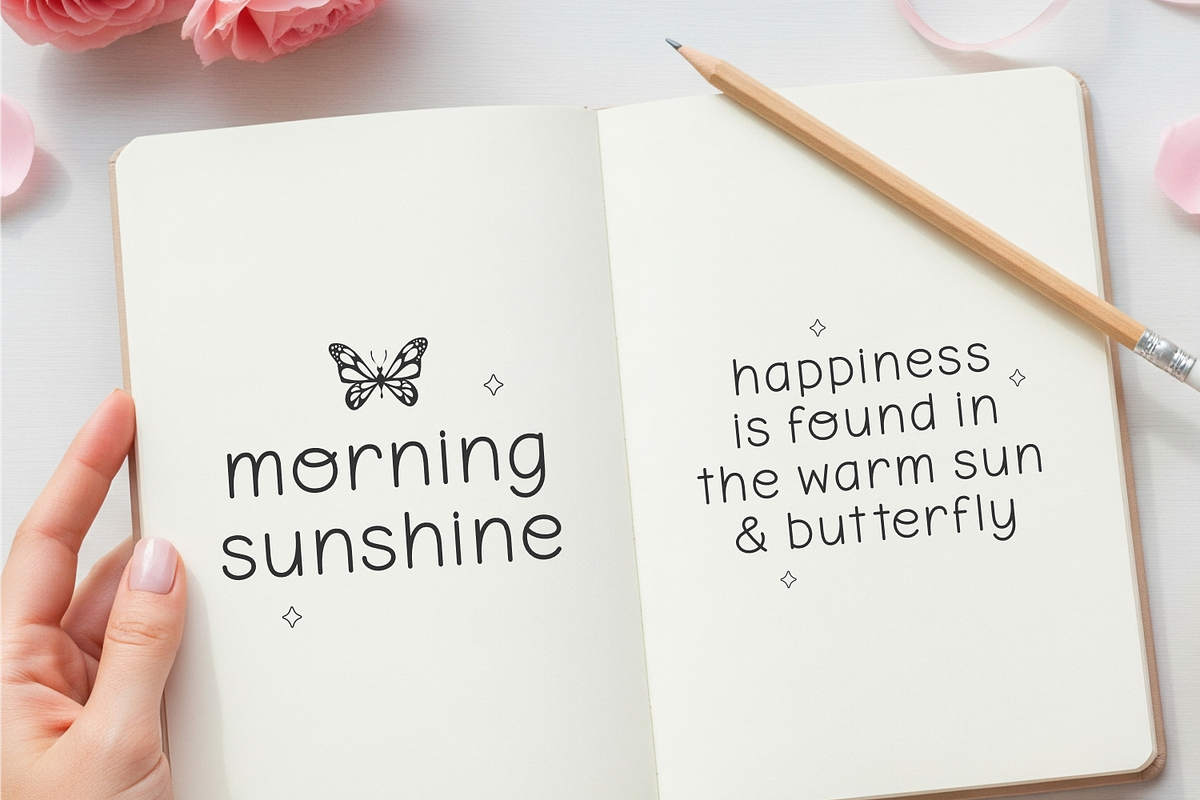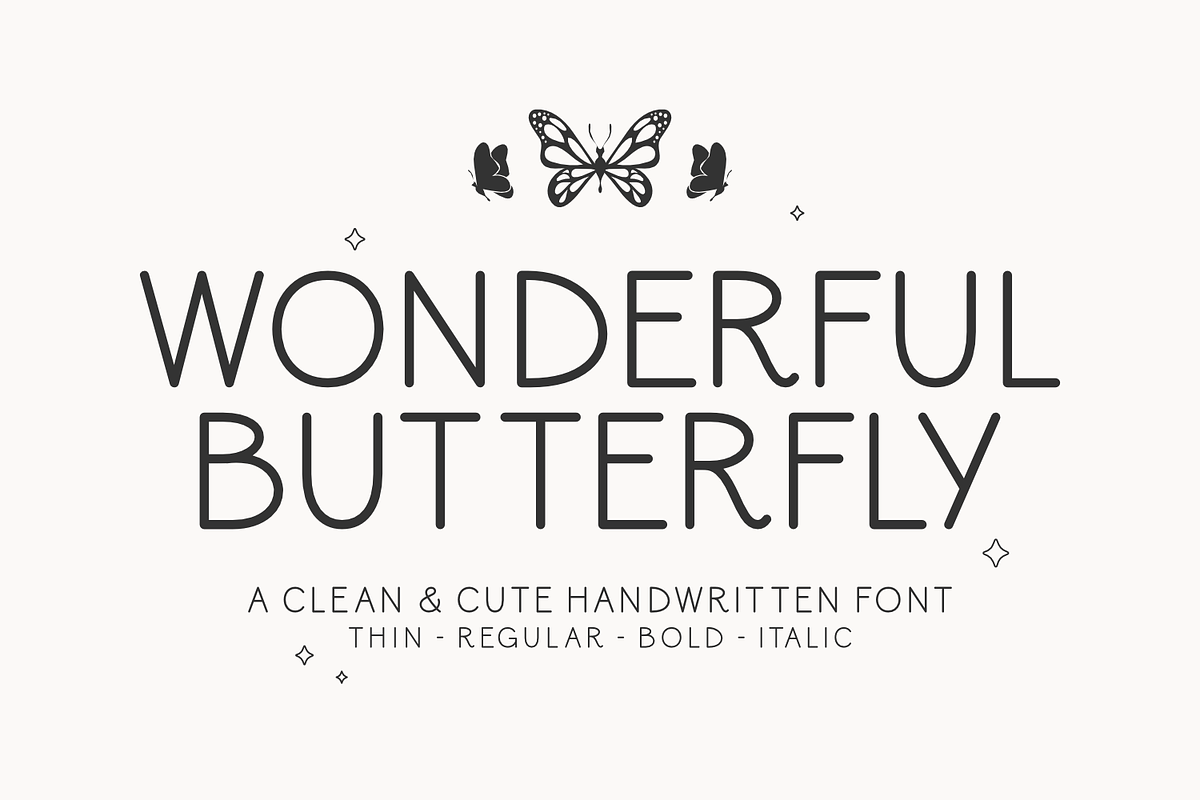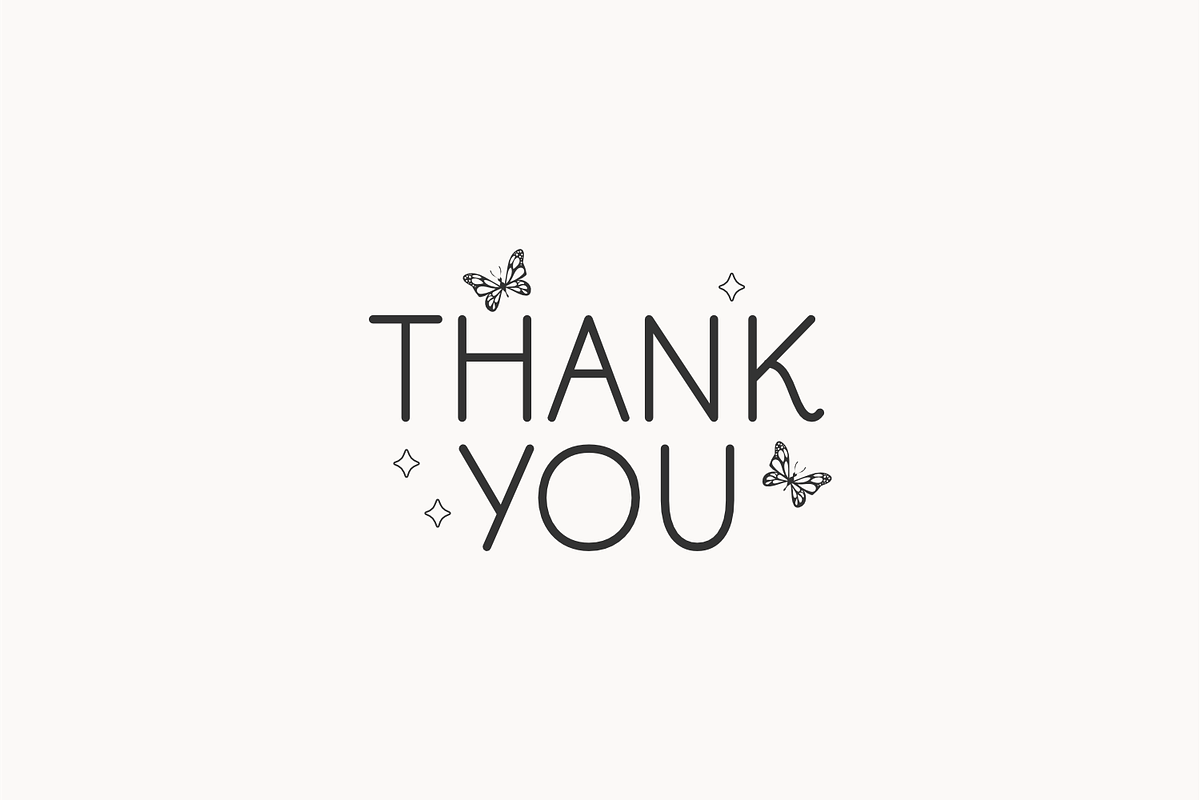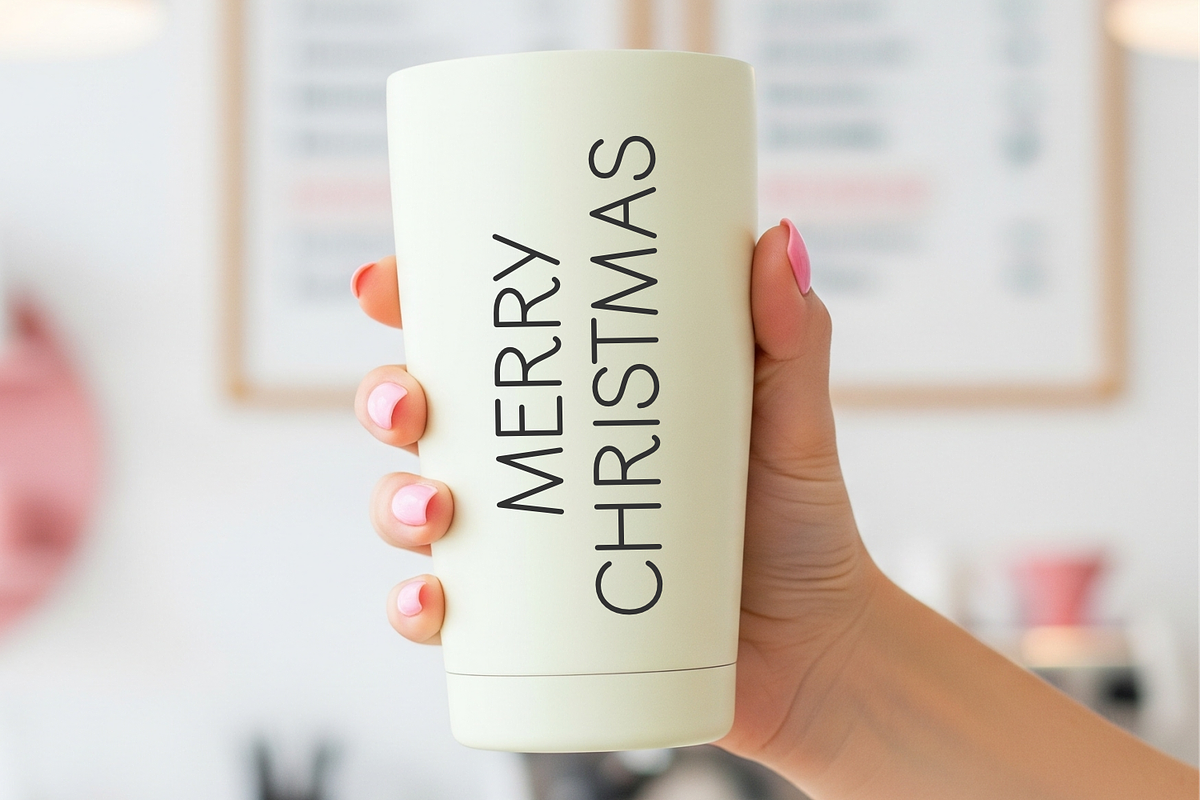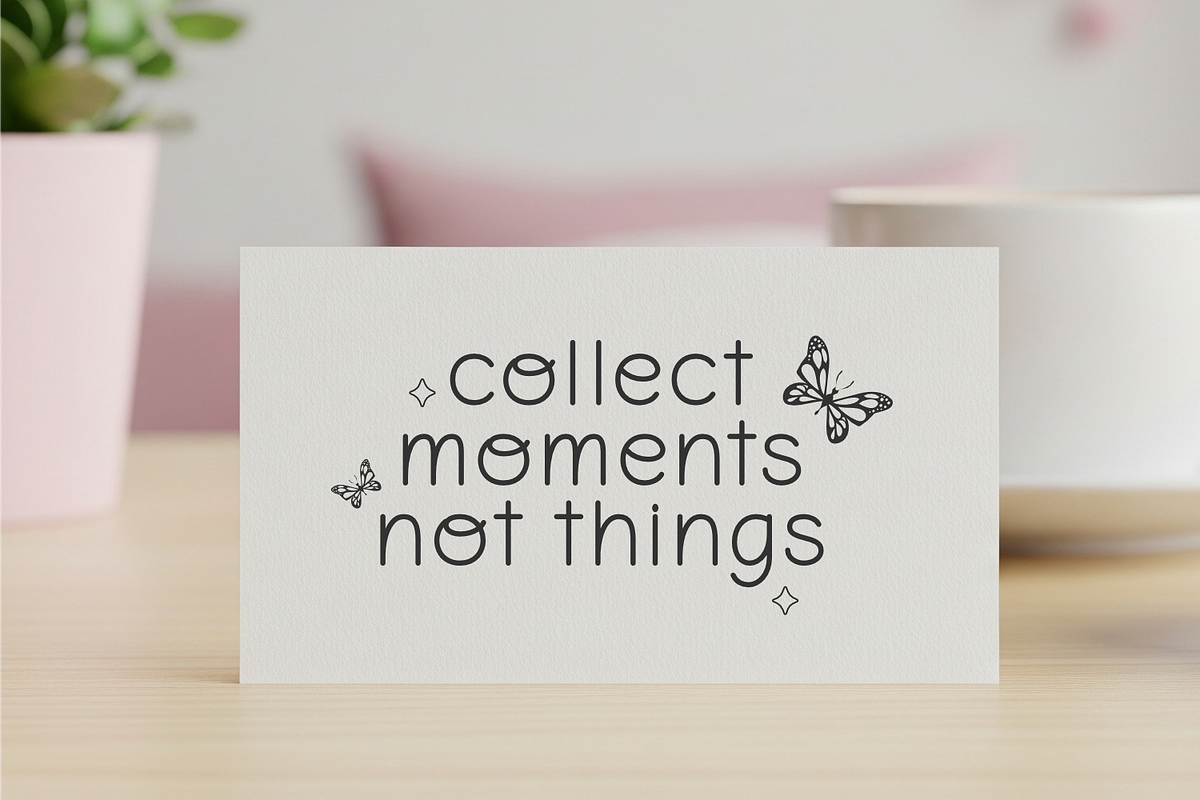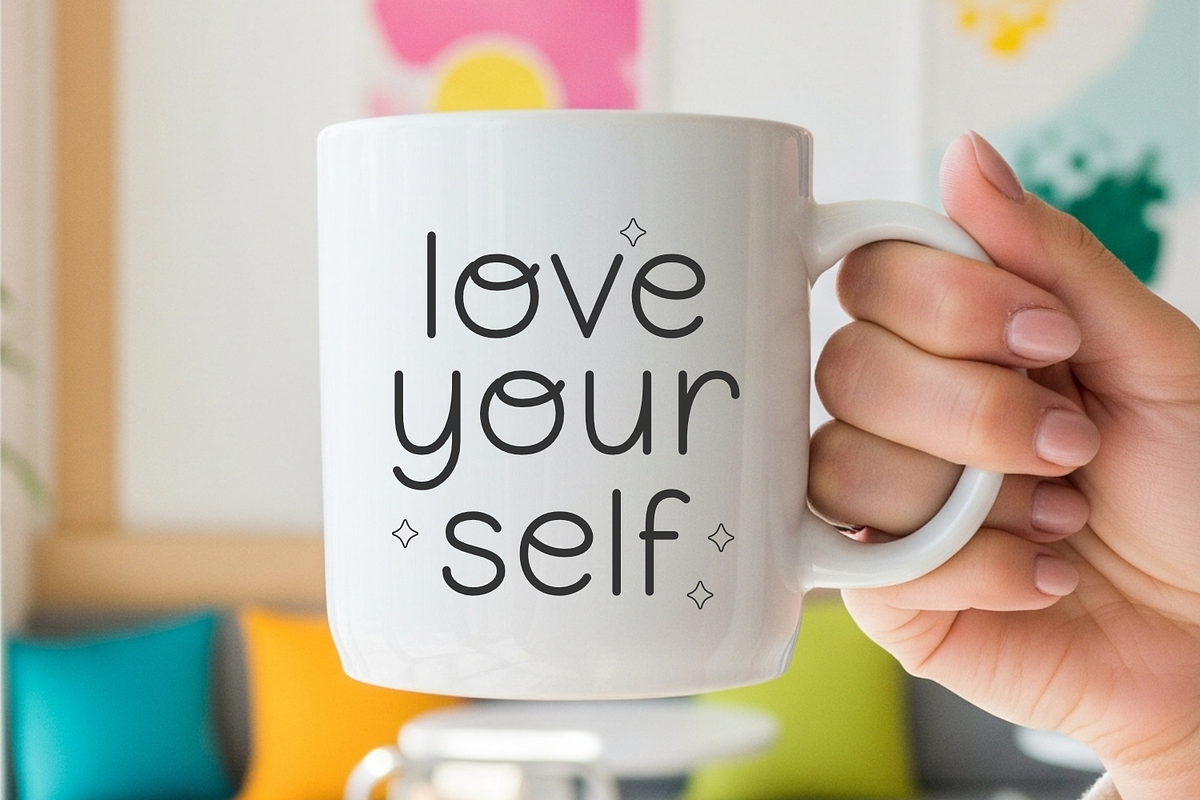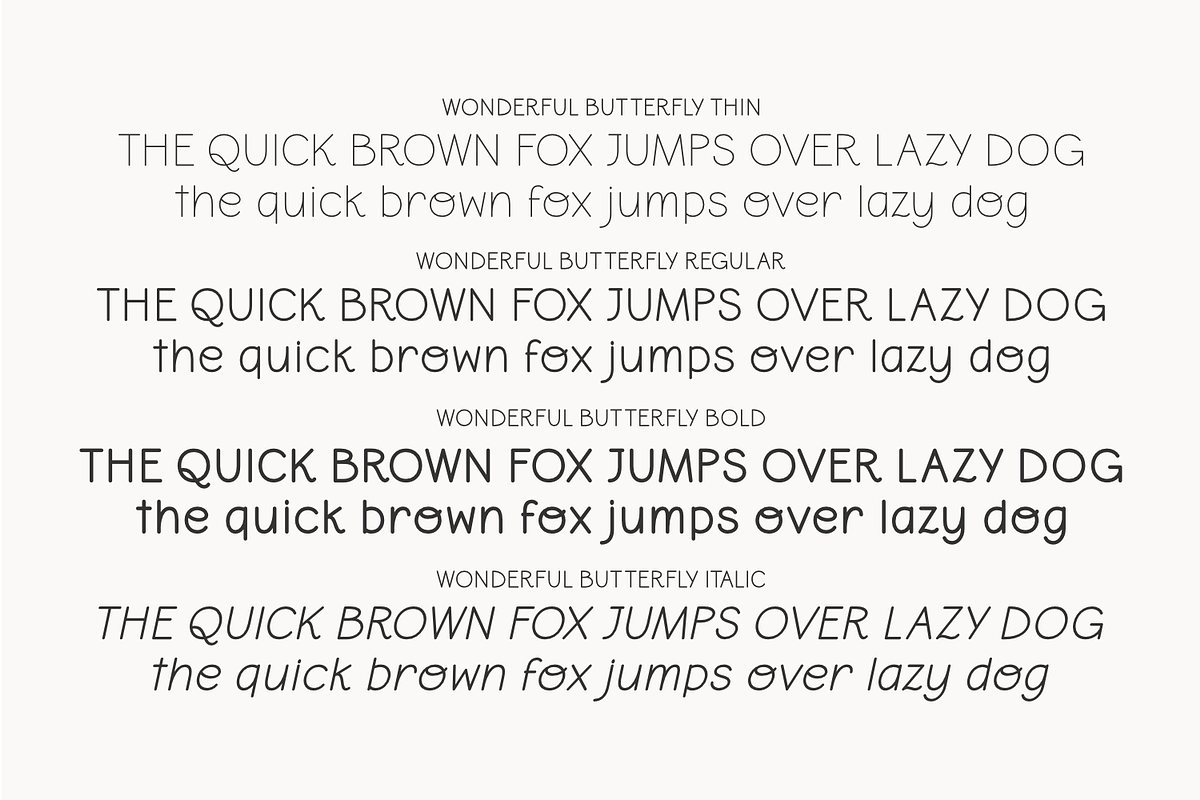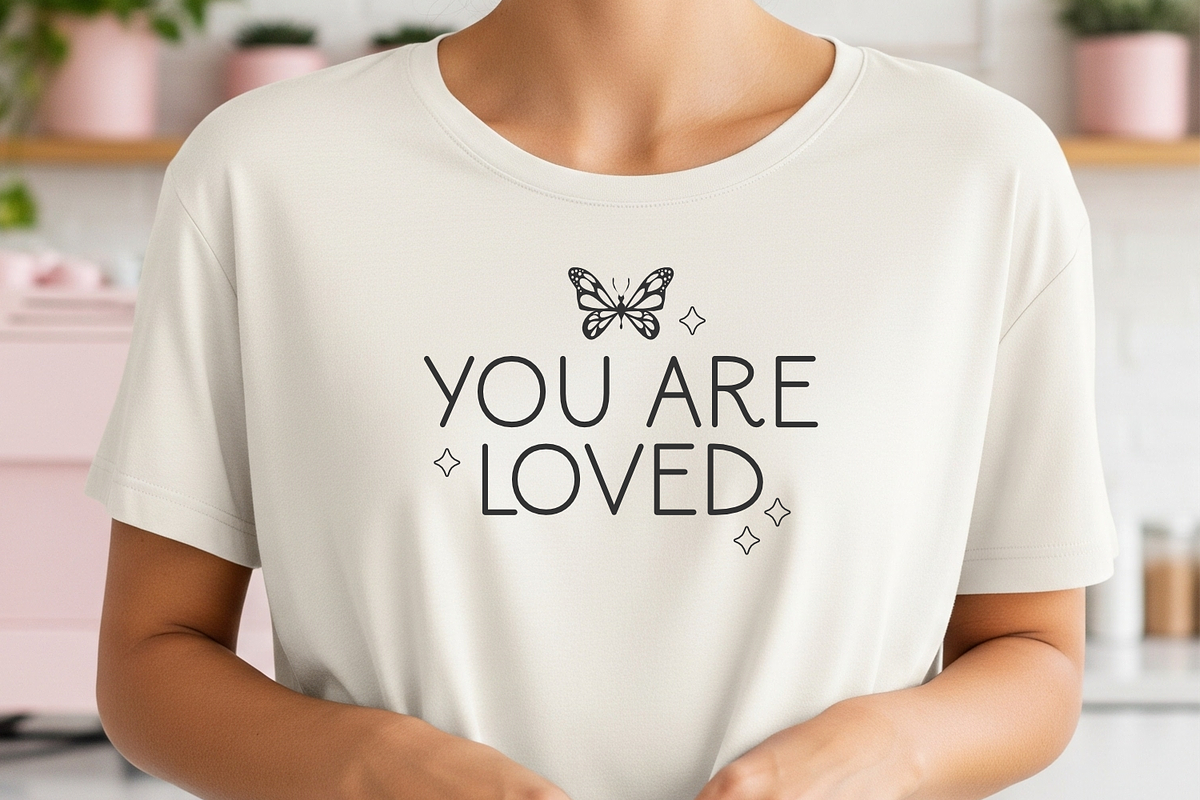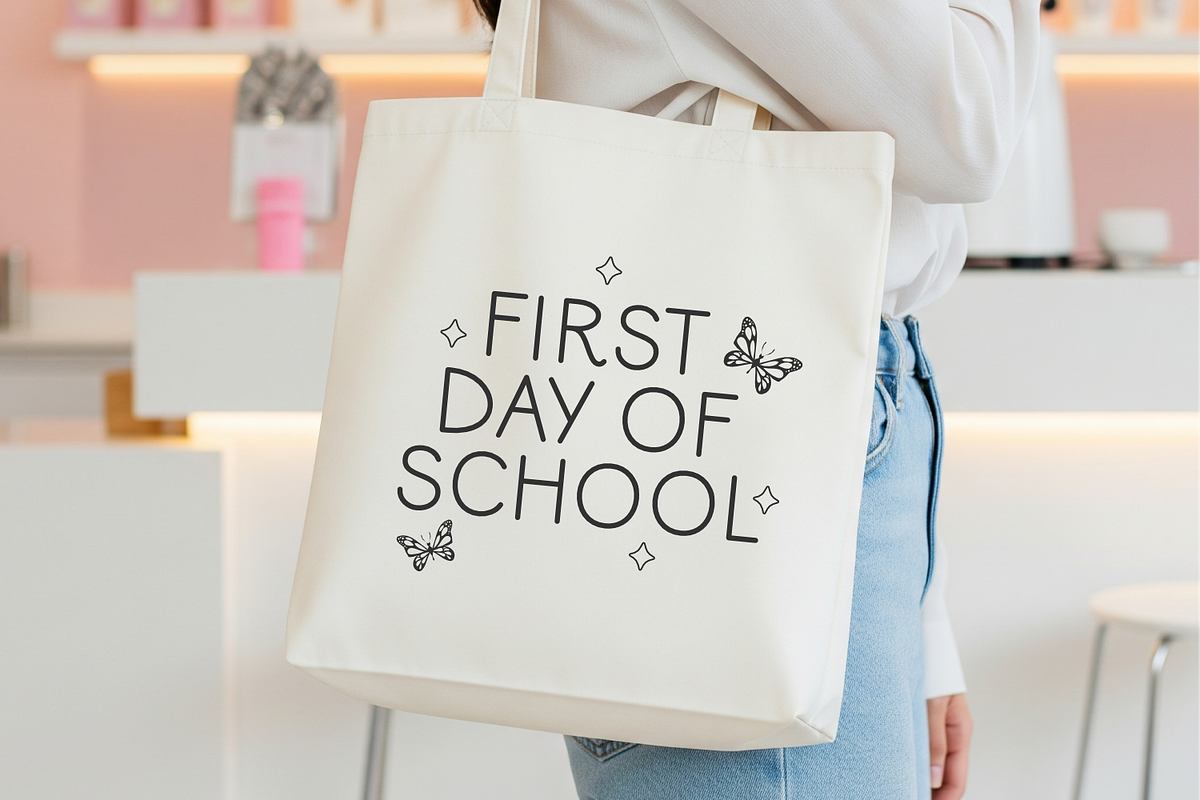
Wonderful Butterfly - Cute Kids Font
Introducing Wonderful Butterfly, a delightfully versatile handwritten font that marries a contemporary feel with a playful yet professional undertone. Its unique design artfully blends harmonious lines with a light-hearted style, making it an impeccable selection for an array of creative pursuits. Each character exudes a handcrafted flair, affording the font a welcoming and intimate character, all while maintaining clean lines for enhanced readability and a polished look. Available in four tailored weights: Thin, Regular, Bold, and Italic, Wonderful Butterfly offers the flexibility needed to establish a visually cohesive and engaging hierarchy in your designs. Opt for Wonderful Butterfly and infuse your creative projects with visual charm and artistic distinction.